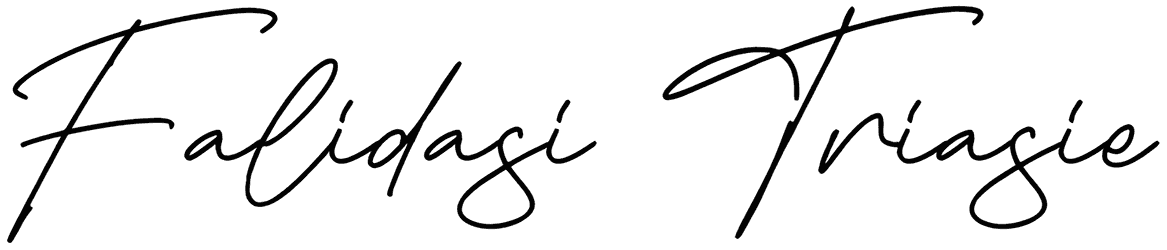
Falidasi Triasie Font
The use of the script font Falidasi Triasie evokes ideas and feelings of natural textures. This autograph font is excellent for you if you are immersed in any sort of creative activity, such as logotype, invitations, signs, or any other such movement.
A full set of characters is trying to give potential prospects an option to move over others. To have an innovative and confidential project, you can try this artwork on that and lend your terms a remarkable concept.